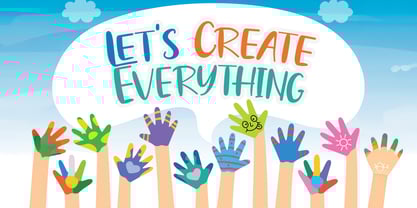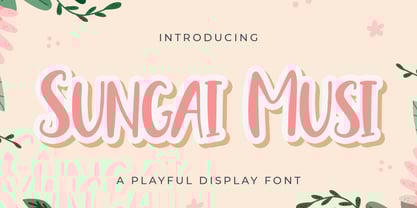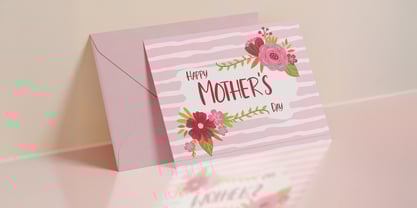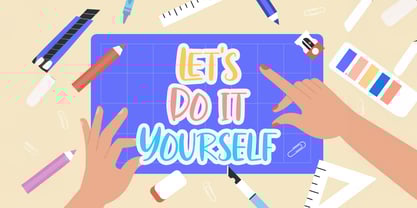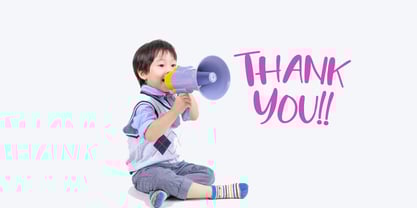
The Sungai Musi Font Family was designed by Virgiawan Listanto and published by Stringlabs Creative Studio. Sungai Musi contains 1 styles.
Sungai Musi is a lively and imaginative playful display font inspired by the gentle flow of its namesake river. Its friendly curves and whimsical charm make it perfect for adding a touch of natural playfulness to children's books, engaging headlines, and delightful branding.
Designers: Virgiawan Listanto
Publisher: Stringlabs Creative Studio
Foundry: Stringlabs Creative Studio
Design Owner: Stringlabs Creative Studio
Sungai Musi